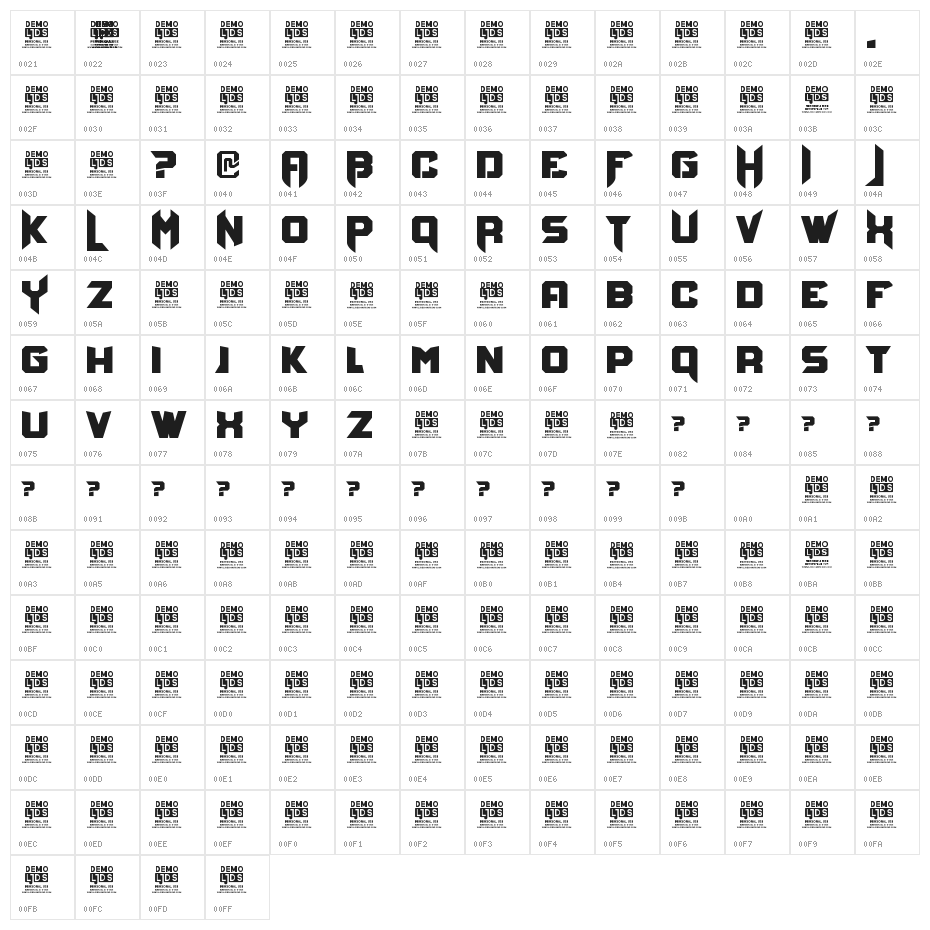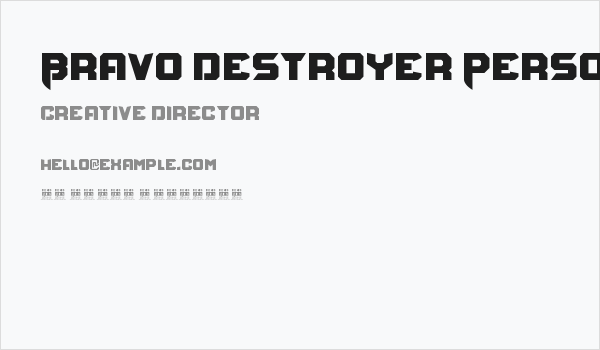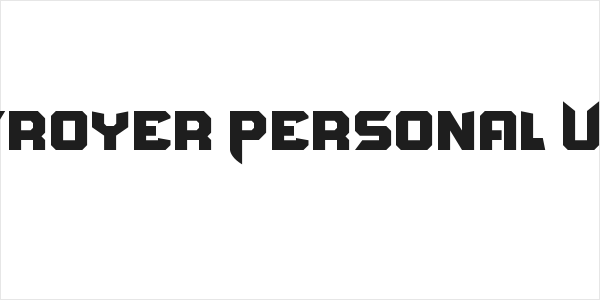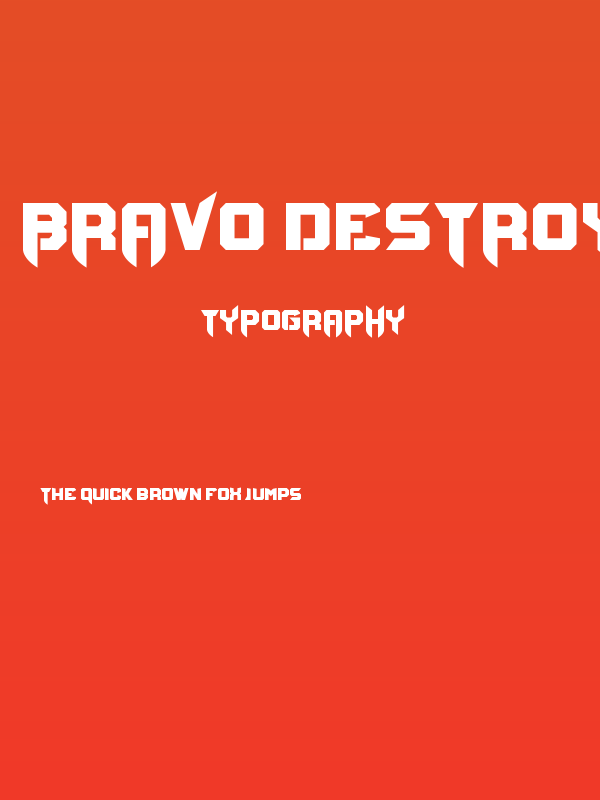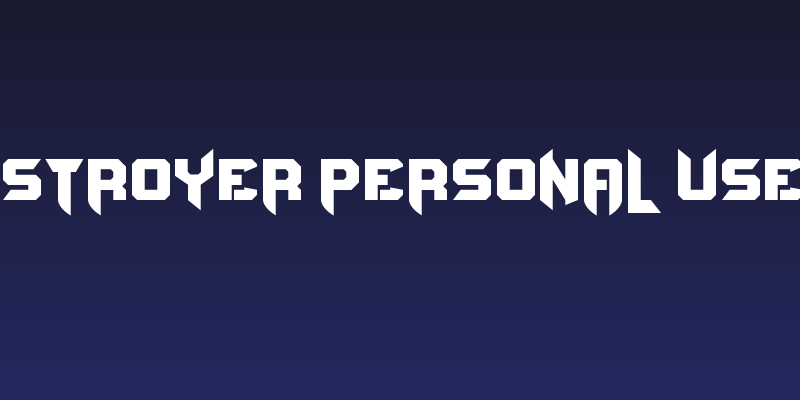
Bravo Destroyer Personal USE regular Font
Bravo Destroyer Personal USE regular Description
This font features a bold, angular design with sharp edges and a futuristic aesthetic. The uppercase letters are characterized by their geometric shapes and strong presence, making them ideal for impactful headlines or logos. The font's style is reminiscent of sci-fi or military themes, with a modern twist. The characters are uniformly wide, providing a balanced and cohesive look across the alphabet. The absence of lowercase letters and special characters suggests a focus on uppercase display use.
| Proposed Projects | Ideal for sci-fi themed posters, video game titles, or branding for tech companies. |